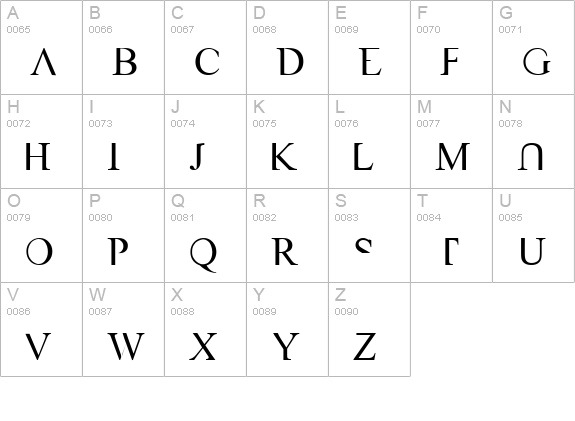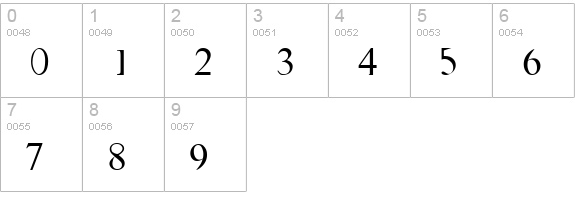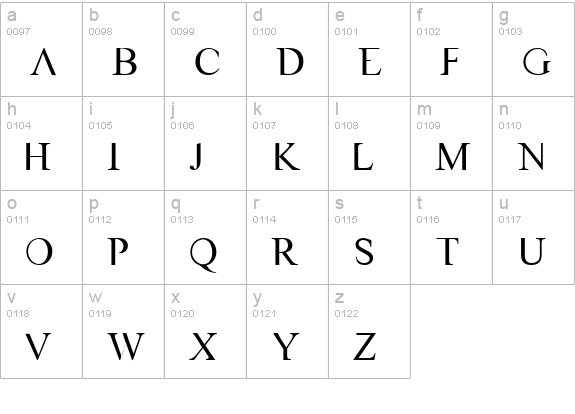
VAST Naked Font Details
Introducing VAST Naked font, a stunning typeface that beautifully captures the essence of simplicity and elegance. This font boasts a clean and minimalist design, making it perfect for a wide range of creative projects. VAST Naked font is the epitome of versatility, as it can effortlessly adapt to various design styles, from modern and contemporary to classic and timeless. Its sleek and streamlined letterforms exude a sense of sophistication, while maintaining a sense of approachability and warmth. With its bold yet refined presence, VAST Naked font is the ideal choice for branding, logo design, packaging, editorial layouts, and much more. Its timeless appeal will ensure that your designs stand out and make a lasting impression. One of the most remarkable aspects of VAST Naked font is that it is available to download for free at FontsMarket.com. This means that you can easily access this exceptional typeface and incorporate it into your creative projects without any cost. FontsMarket.com offers a wide selection of high-quality fonts, ensuring that designers and typography enthusiasts have access to the best resources available. Don't miss out on the opportunity to enhance your designs with the striking beauty of VAST Naked font. Download it for free at FontsMarket.com and unlock a world of design possibilities.